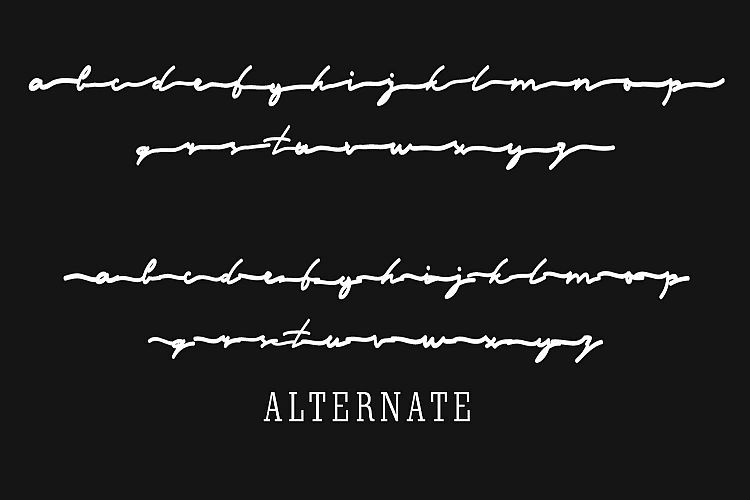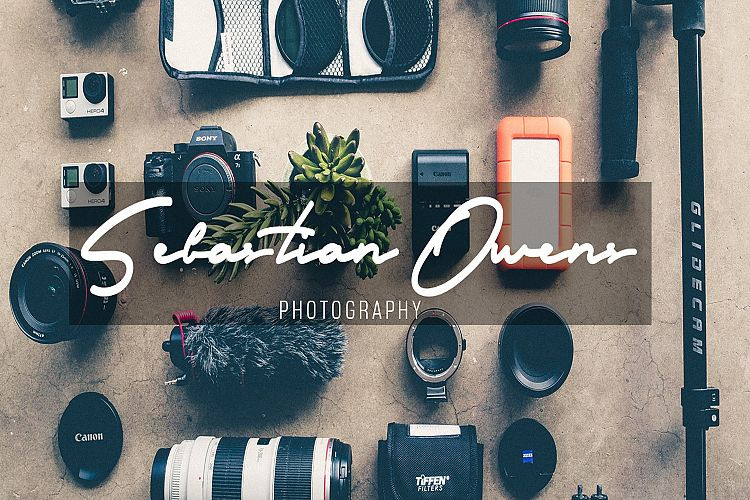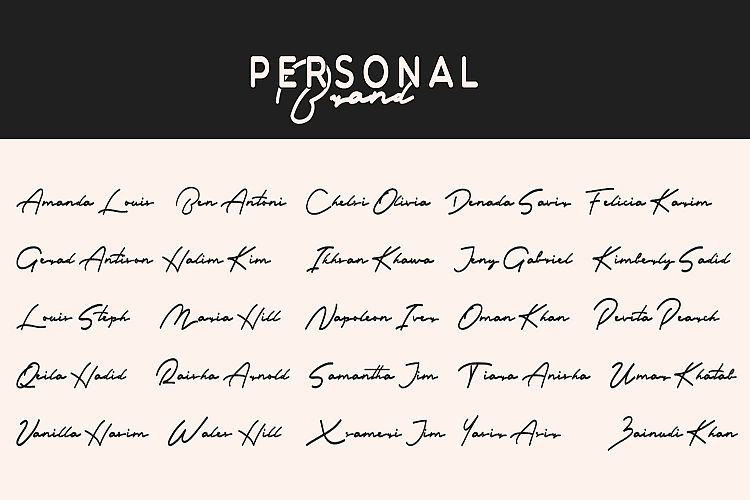
Rendering Signature Font
Rendering Font is a modern signature font. This font made with perfect combining of each characters. It looks original and can be used for all your project needs. It is design and shared by Arendxstudio. This is a modern and elegant handwritten Very unique and stylistic font with a magnificent dressing that will suit all your design needs. This is handwritten fonts with exclusive styles, made specifically for invitations, can be applied to logos, branding, business cards, flyers, website headings etc.